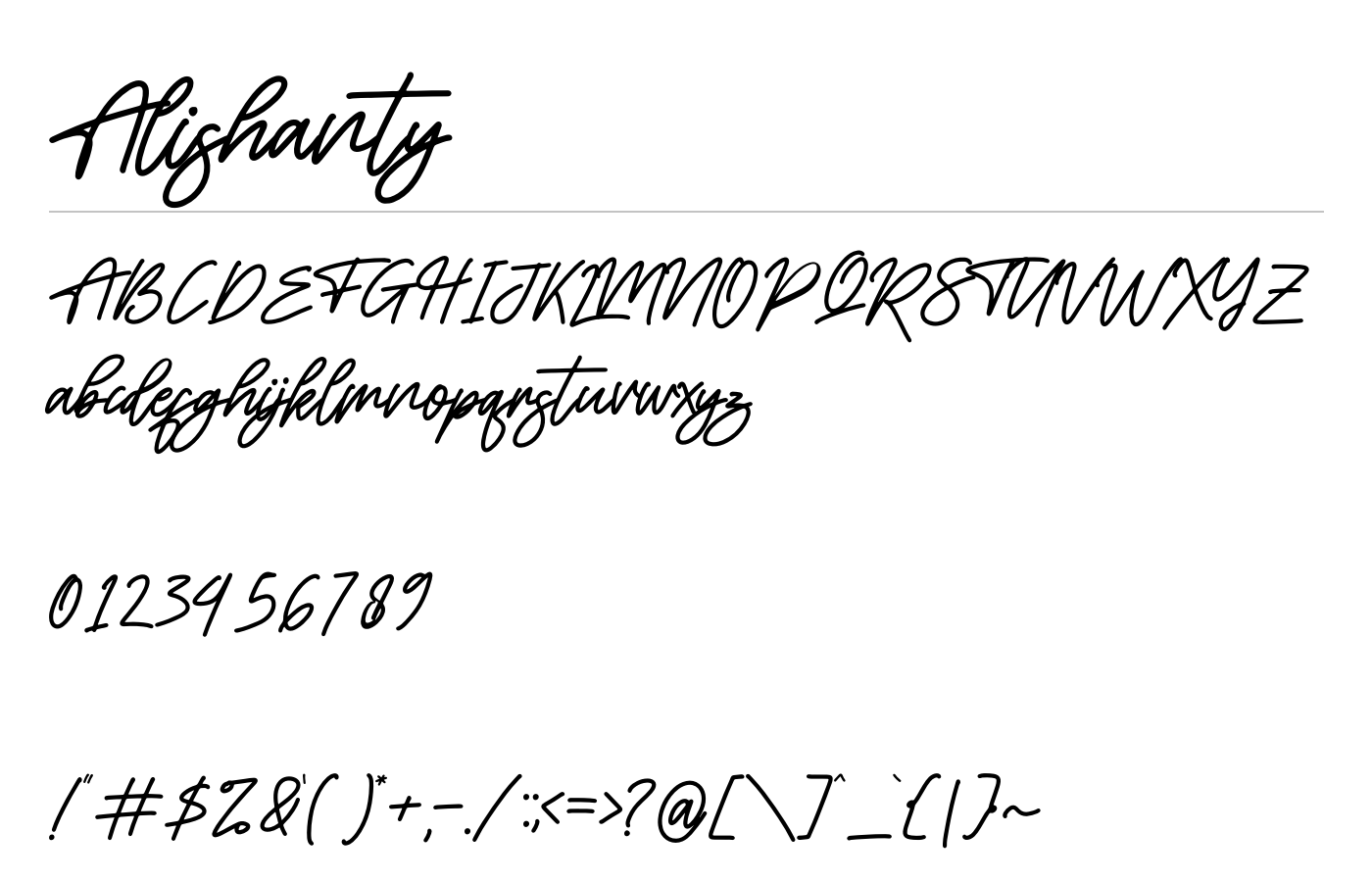
Alishanty is a lively and elegant script font characterized by its smooth, flowing strokes and natural handwritten feel. It features a moderate weight with a slightly condensed style, offering a balanced x-height and consistent stroke contrast that adds charm and personality. Perfect for creative branding, invitations, and social media graphics, Alishanty brings a personal, stylish touch that feels both modern and approachable.
Alishanty Font
About Alishanty Font